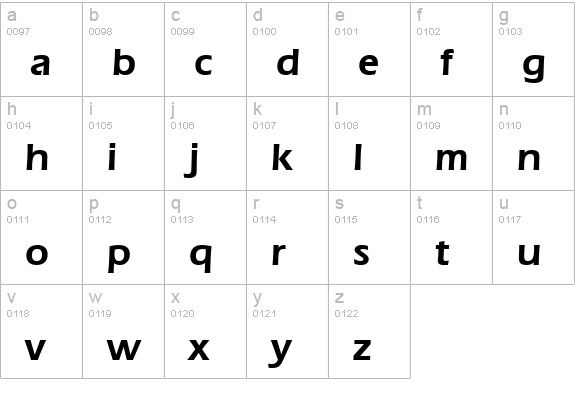
Eras Demi BT is a sub-bold, structured variant in the Eras typeface family \xE2\x80\x94 well suited to sub-headlines and emphasised passages.
Eras Demi BT is a modern and stylish font that exudes sophistication and elegance. With its clean lines and subtle curves, this typeface is perfect for a wide range of design projects, from branding to editorial layouts. The bold and eye-catching presence of Eras Demi BT makes it ideal for headlines and titles, while its legibility ensures that body text is easily readable. What sets Eras Demi BT apart is that it is available for free download at FontsMarket.com. This means that you can access this versatile font without any cost, making it a valuable addition to your font library. Whether you're a seasoned designer or just starting out, Eras Demi BT offers a sleek and professional look that will elevate your projects to the next level. Download Eras Demi BT today and unleash your creativity with this exceptional typeface.